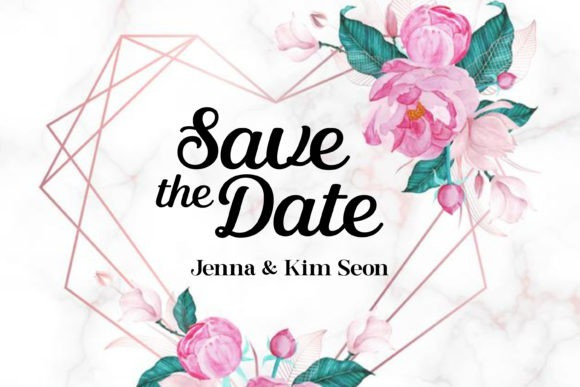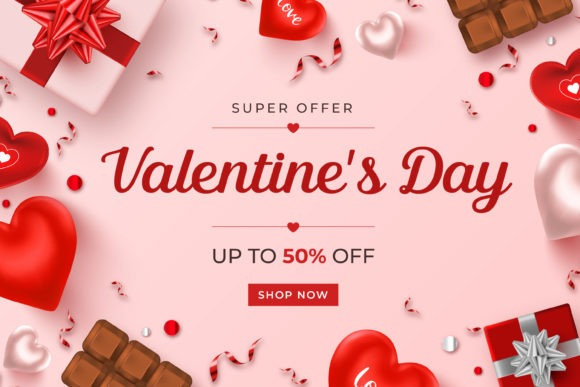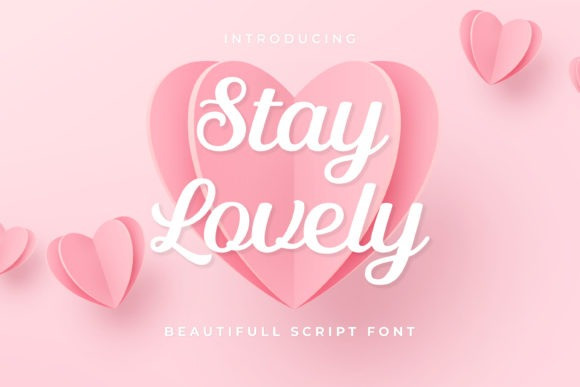
Stay Lovely Font
Stay Lovely Font is an elegant and sweet handwritten font with a romantic spark. Use it to add that special enchanting touch to any design idea you can think of!